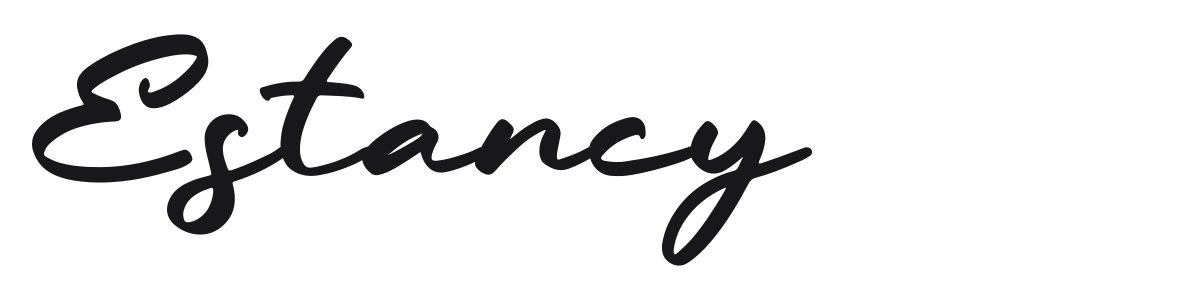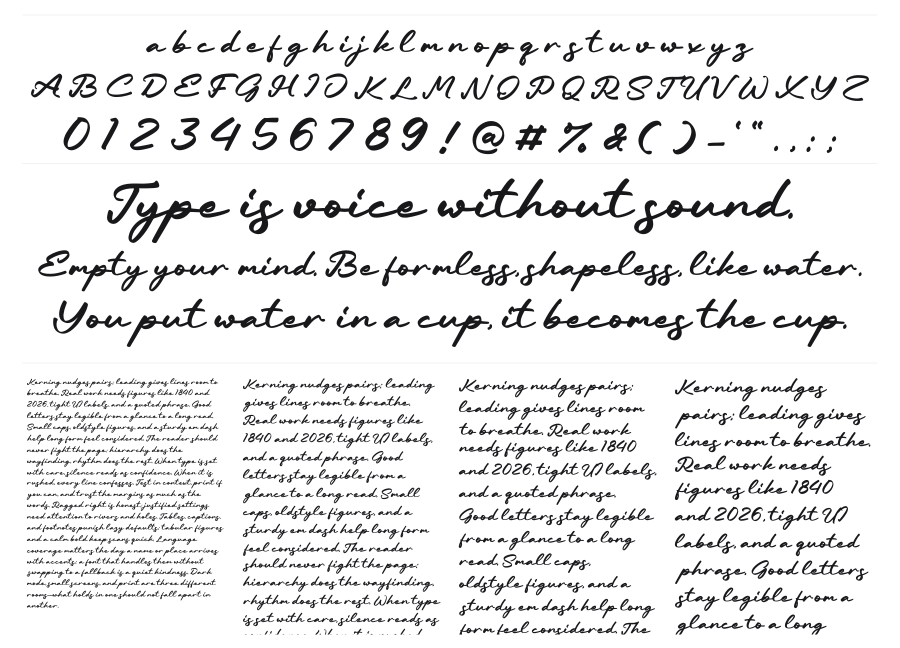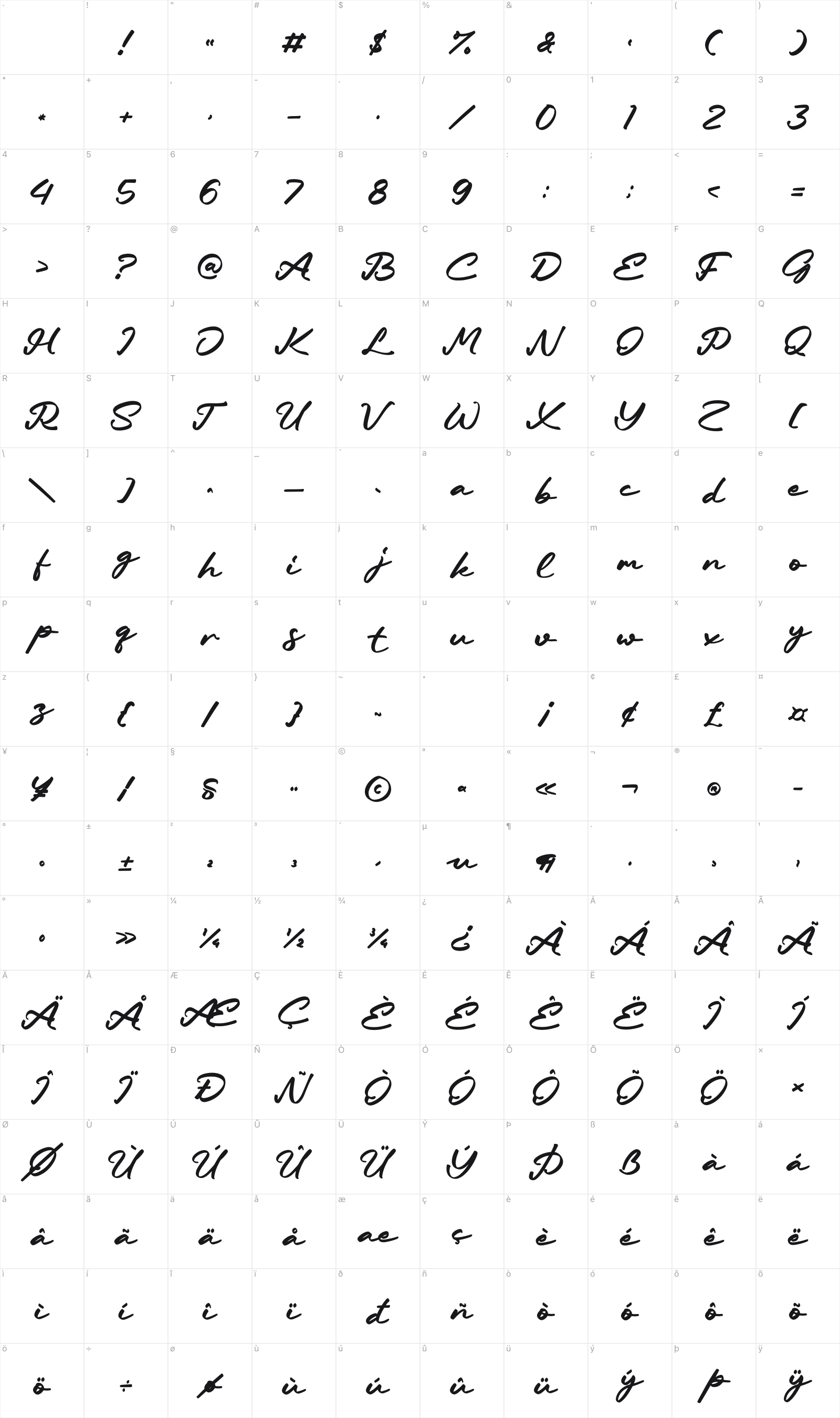
Estancy
Estancy is a casual connected script with the loose, flowing energy of natural handwriting. Thick downstrokes and thin hairline upstrokes create lively stroke contrast, while long linking strokes give the text a continuous, unbroken rhythm. It has the kind of effortless quality that works well on product labels, social media graphics, and brand identities that want to feel approachable.